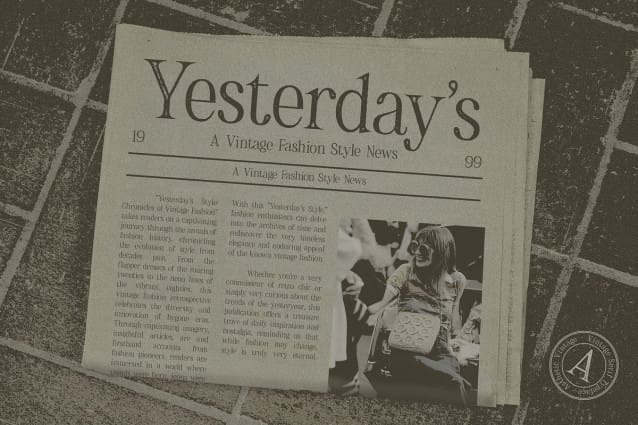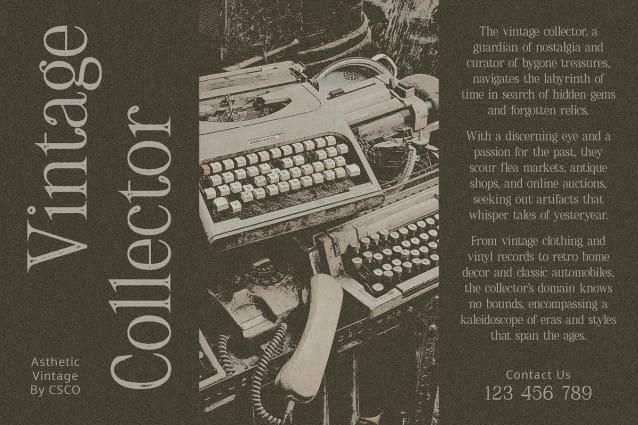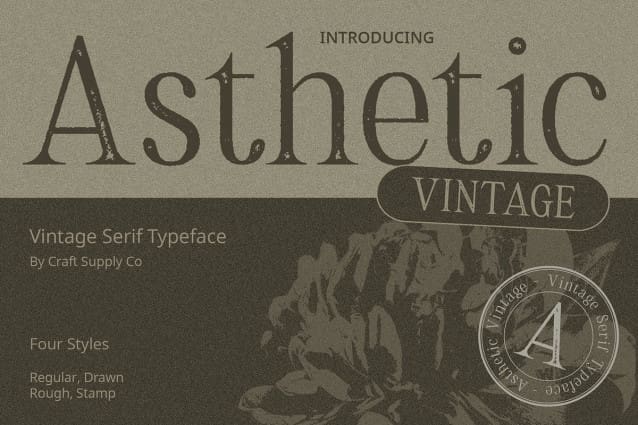
Asthetic Vintage Font
Asthetic Vintage Font: Timeless Elegance Redefined. Classic Serif Appeal Asthetic Vintage exudes timeless charm with its classic serif design, reminiscent of traditional typography from bygone eras.
Vintage Stamp Rough Effect Enhanced with a vintage stamp rough effect, each letter of This font carries a sense of nostalgia and authenticity, evoking the charm of vintage printing techniques.
Perfectly Vintage Tailored for vintage-inspired projects, This font is the perfect choice for branding, packaging, and editorial design seeking to capture the essence of yesteryears.
Versatile Application Despite its vintage appeal, This font offers versatility in application, seamlessly blending into both digital and print projects with its classic yet contemporary aesthetic.
Timeless Style This font stands as a testament to timeless style, blending classic serif elements with vintage stamp rough effects to create a font that resonates with nostalgia and sophistication. Embrace the allure of the past with Asthetic Vintage and infuse your designs with vintage elegance.